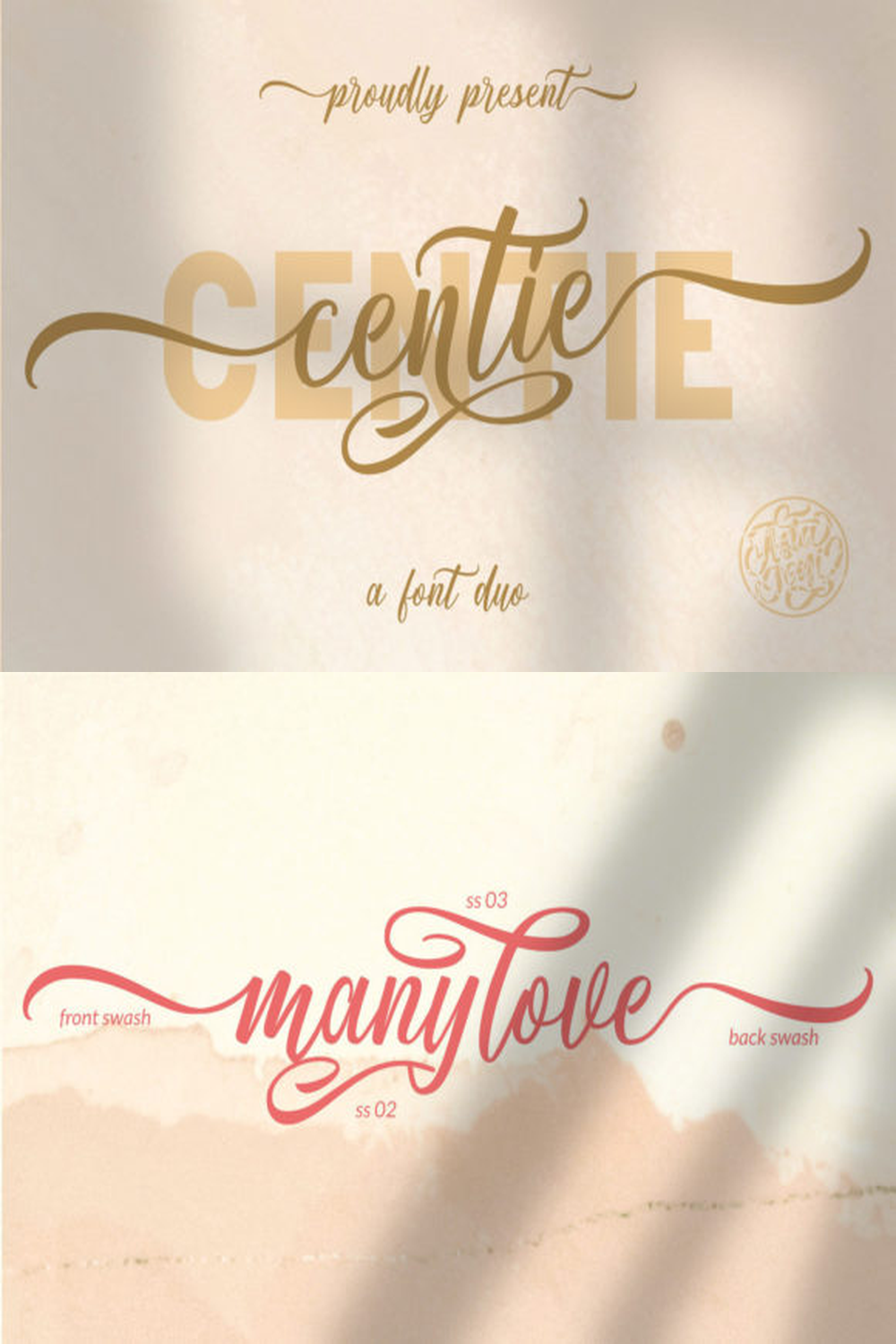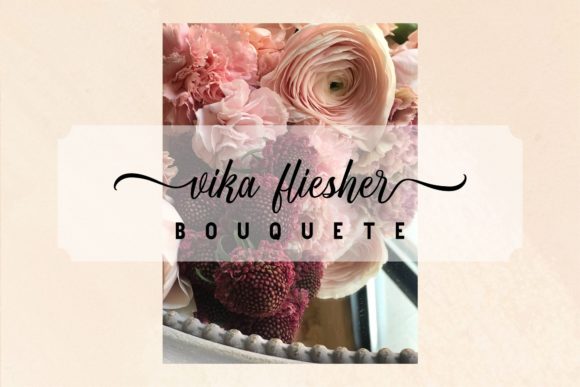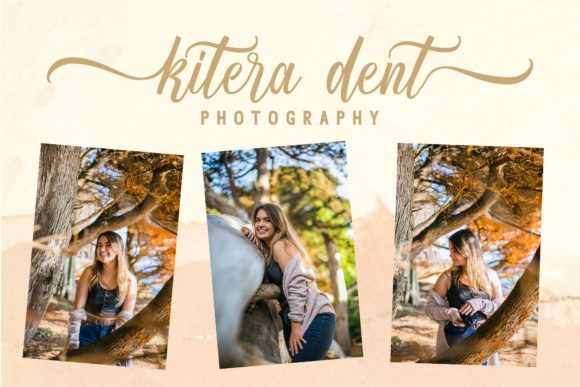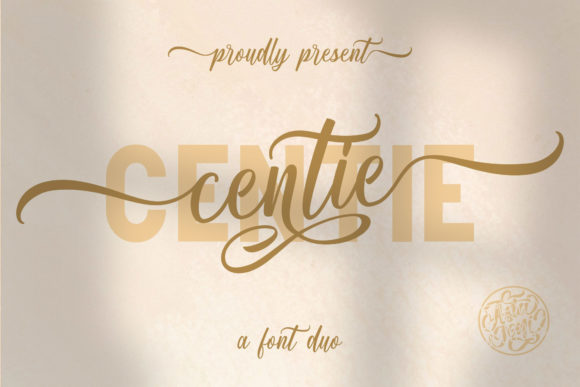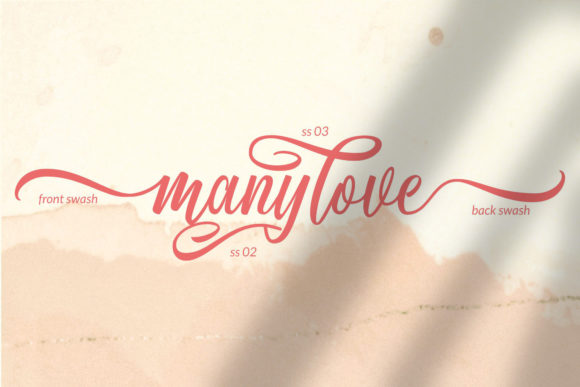
Centie Font: Elegant Script & Sans Serif Font Pairing for Branding
About the Centie Font
We are excited to introduce Centie Font, a must-have typeface for any serious designer. Centie is a spectacular duo font (sans serif and script). Incredibly versatile, this font fits a wide pool of designs, elevating them to the highest levels. Add this font to your favorite creative ideas and notice how it makes them come alive!